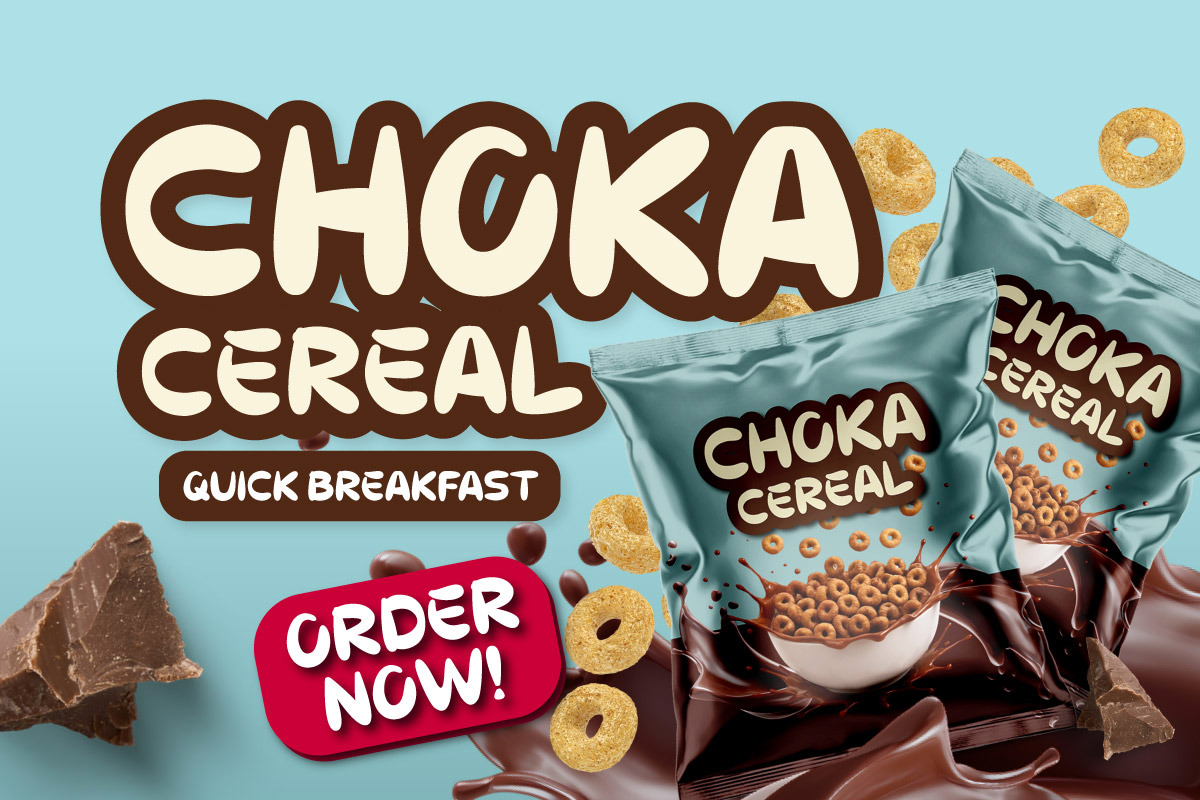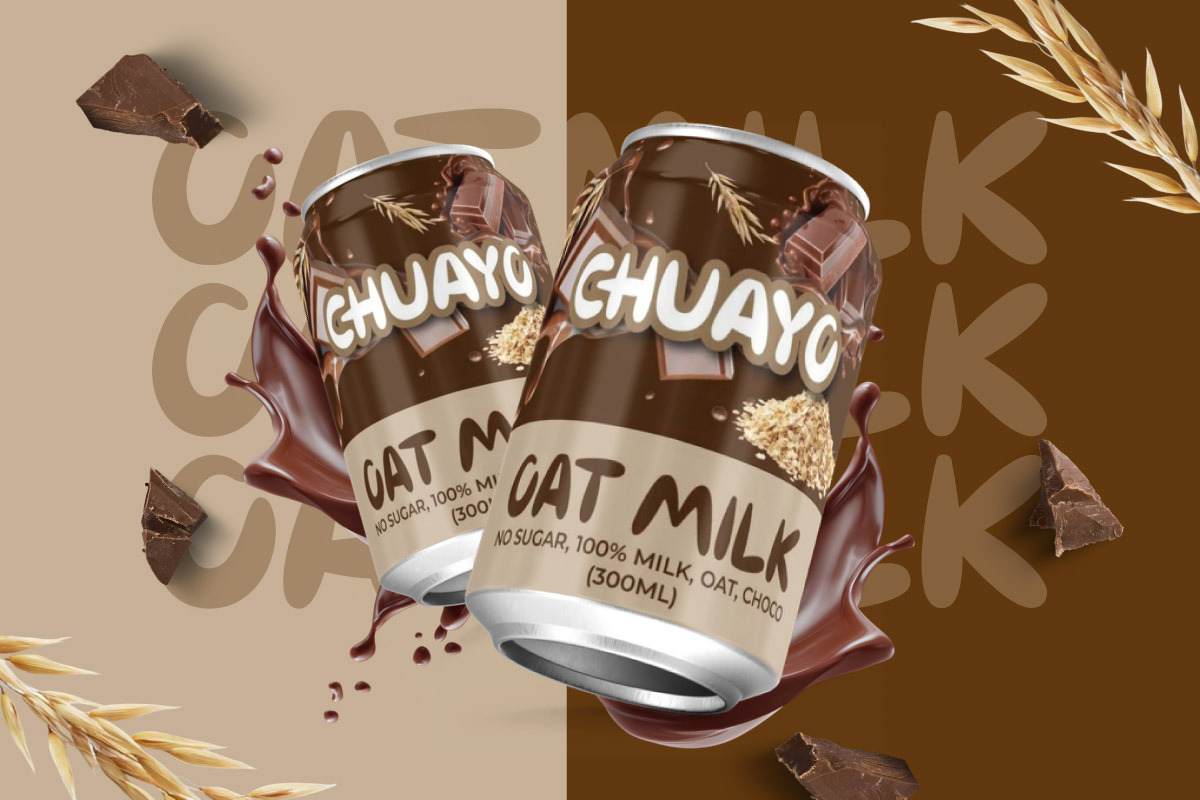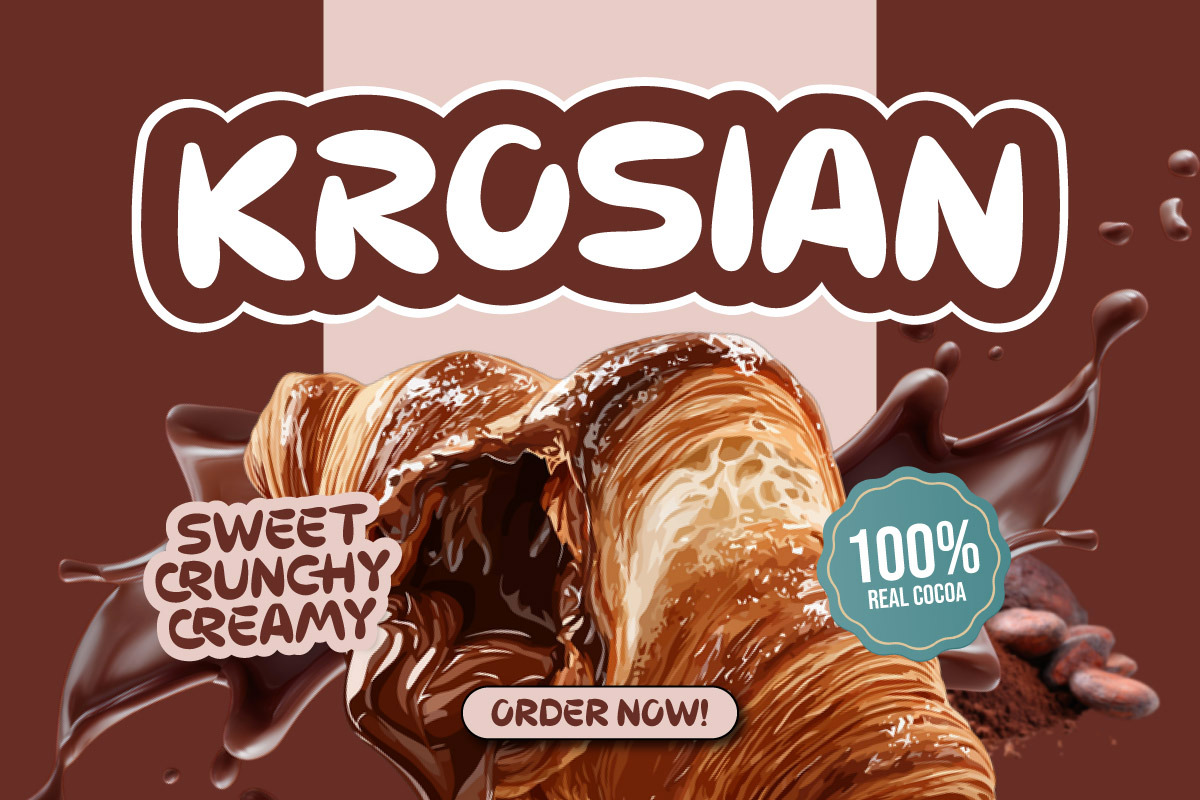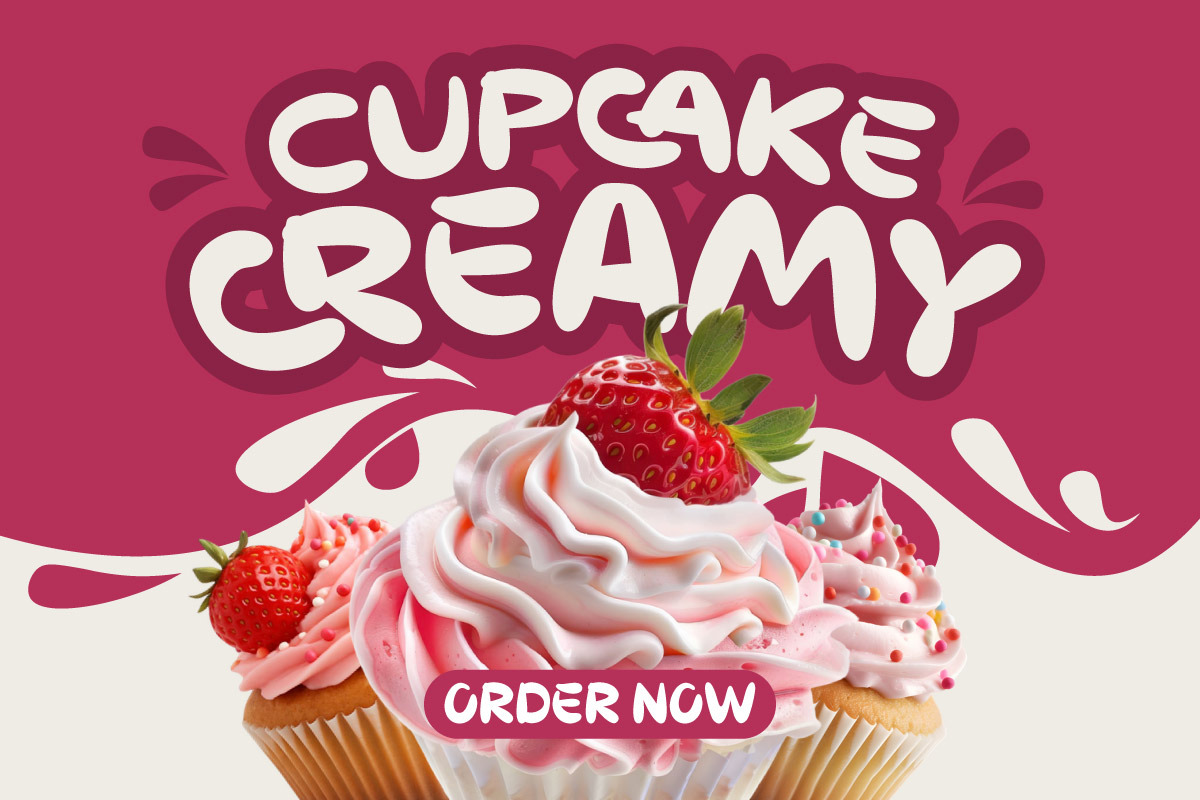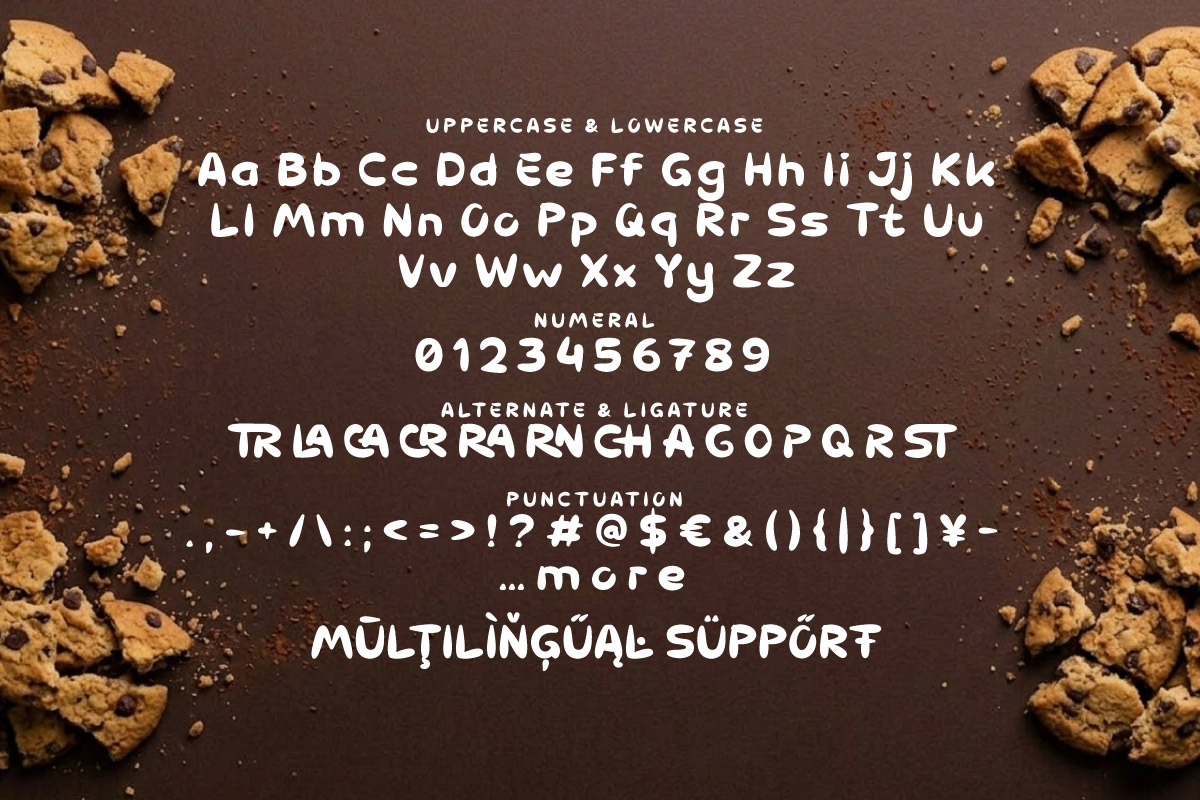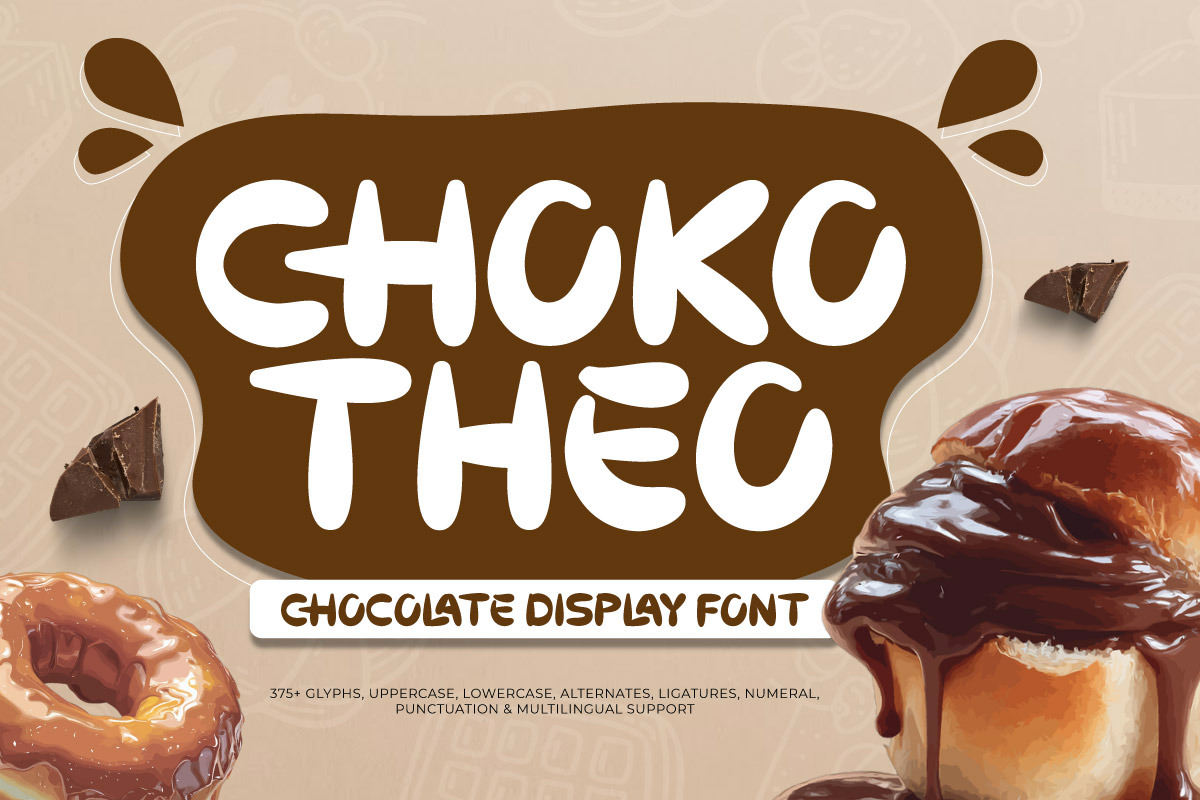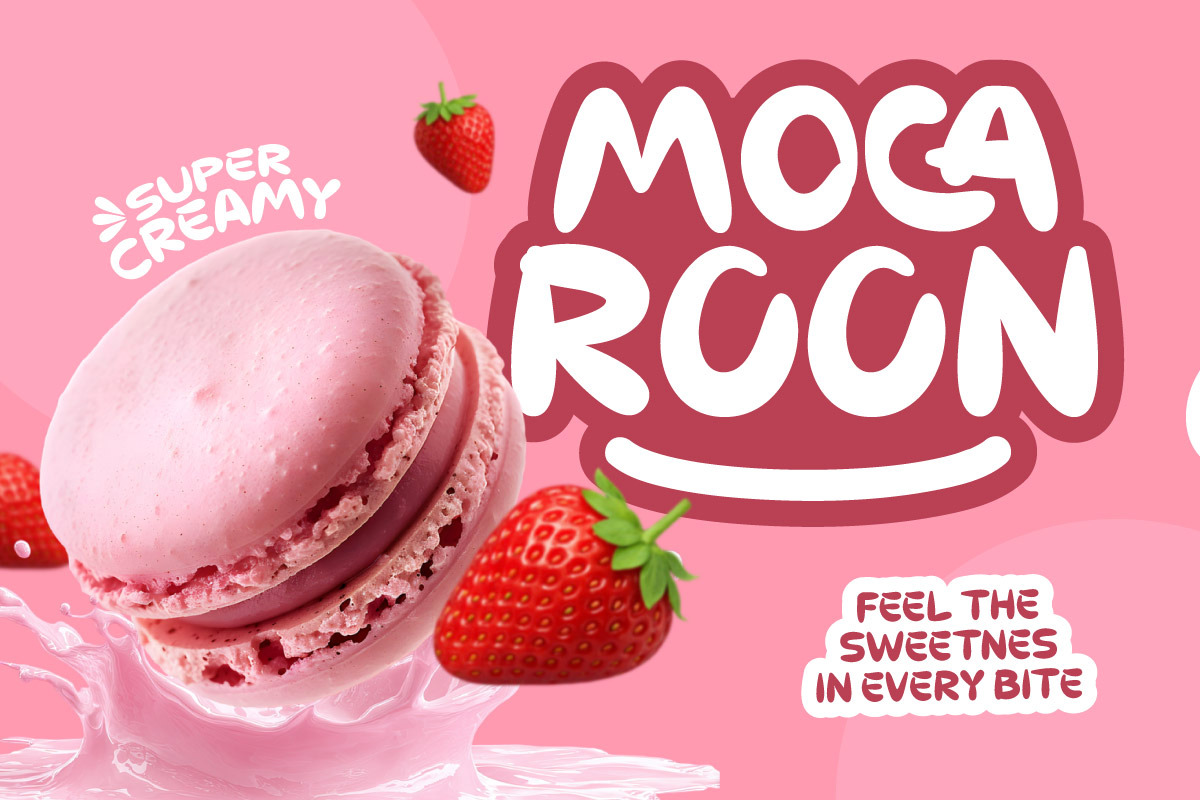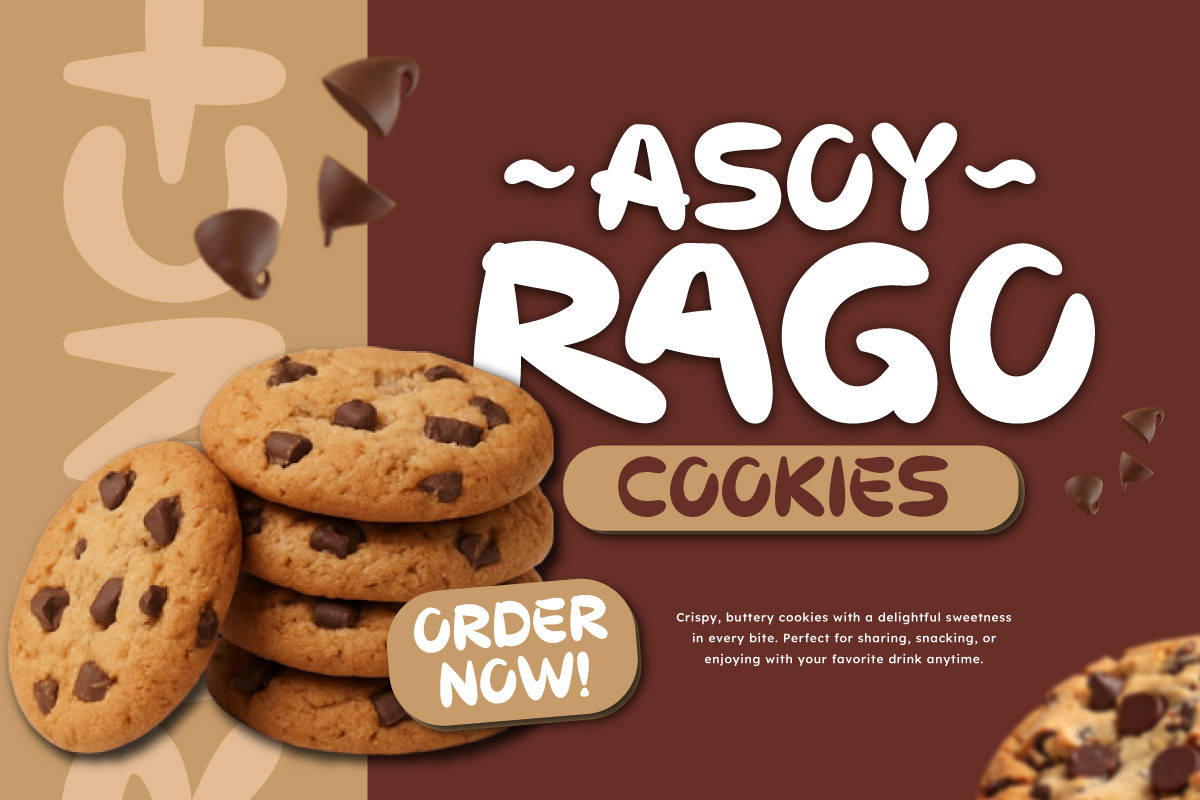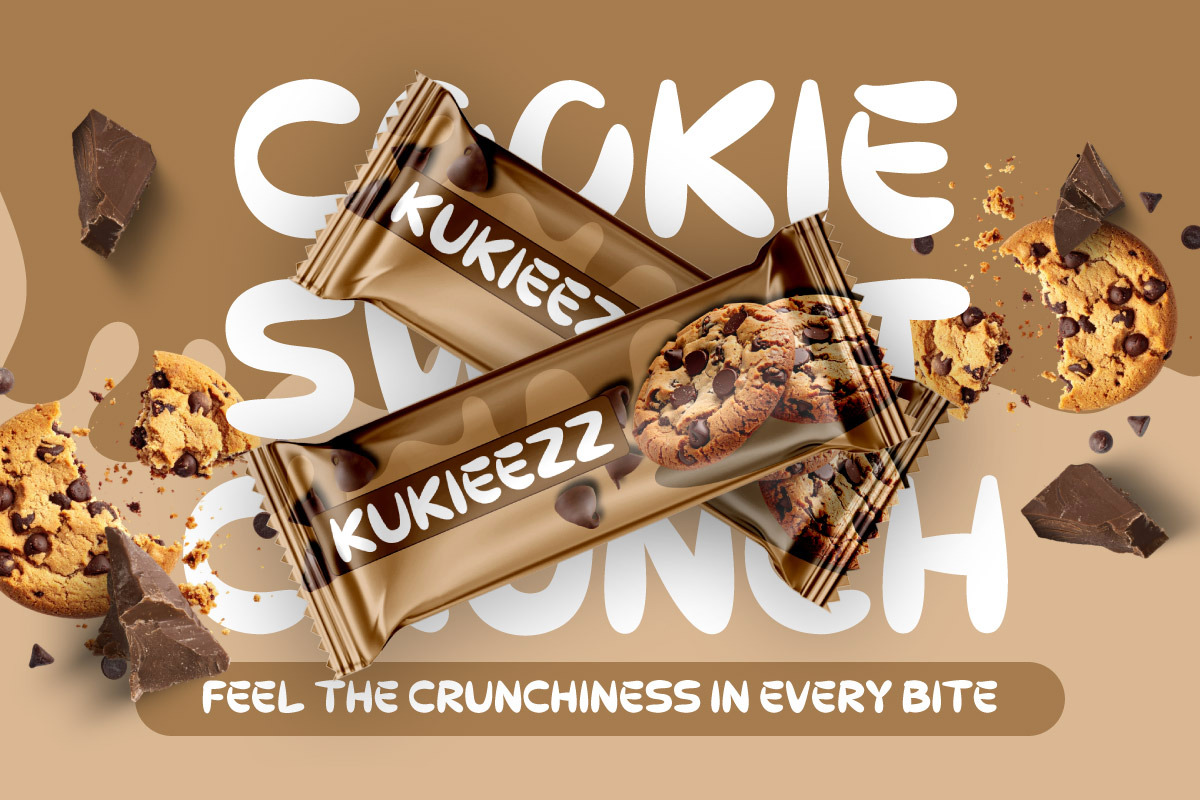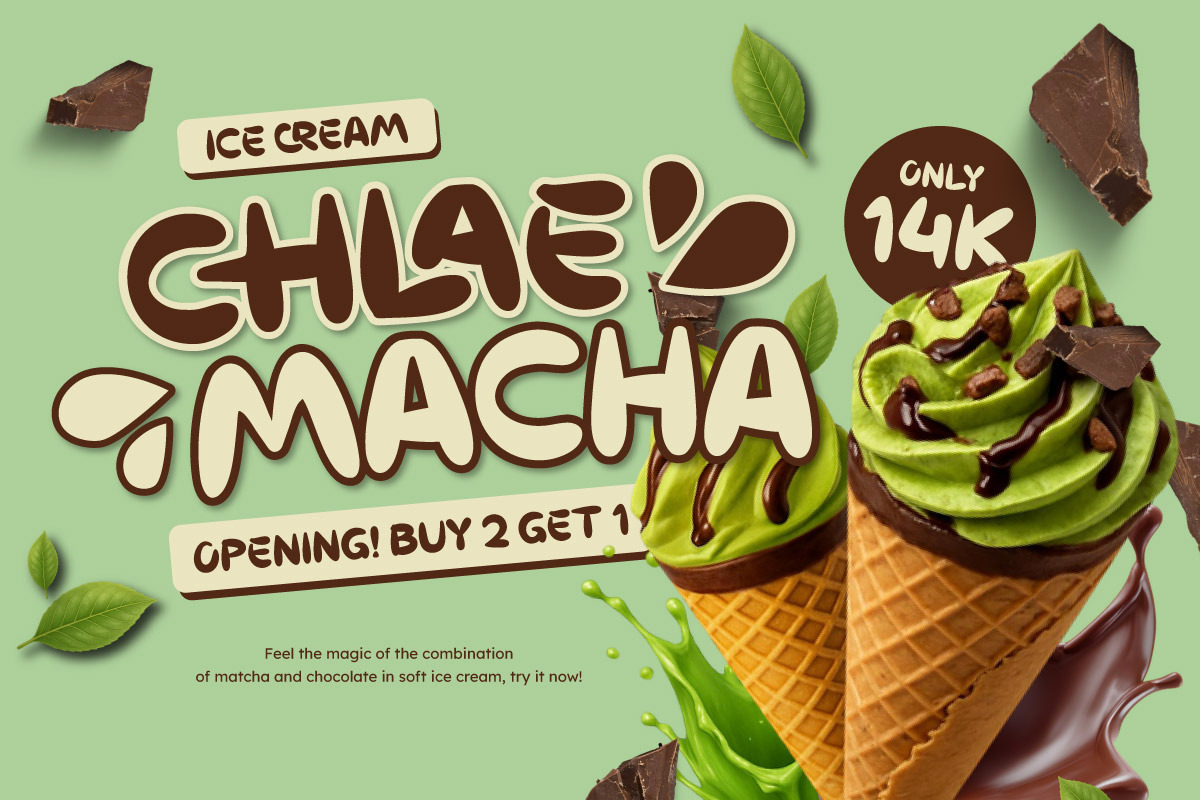
Choko Theo - Chocolate Display Font
Choko Theo is a Choco Display Font typeface specifically designed to meet the visual needs of the F&B (Food & Beverage) industry. Featuring bold and rounded letterforms, this font delivers a friendly yet functional impression. Its visual characteristics represent the soft texture of sweet treats, making it an ideal choice for brand identities within the Snack & Confectionery sector.
This typography prioritizes high readability with solid character proportions to ensure product information is conveyed clearly across various sizes. Inspired by smooth chocolate textures, Choko Theo balances an engaging visual style with the technical requirements of modern packaging design. This allows designers to easily organize a firm information hierarchy on competitive product labels.
As a versatile Chocolate Bar Font, Choko Theo is highly effective when applied to Daily Break-time Snack packaging, bakery products, and digital promotional materials. Its ability to create a standout visual identity helps products appear more distinctive and easily recognizable to consumers. This font is a practical solution for brands looking to emphasize a professional and delicious impression in every culinary design project.